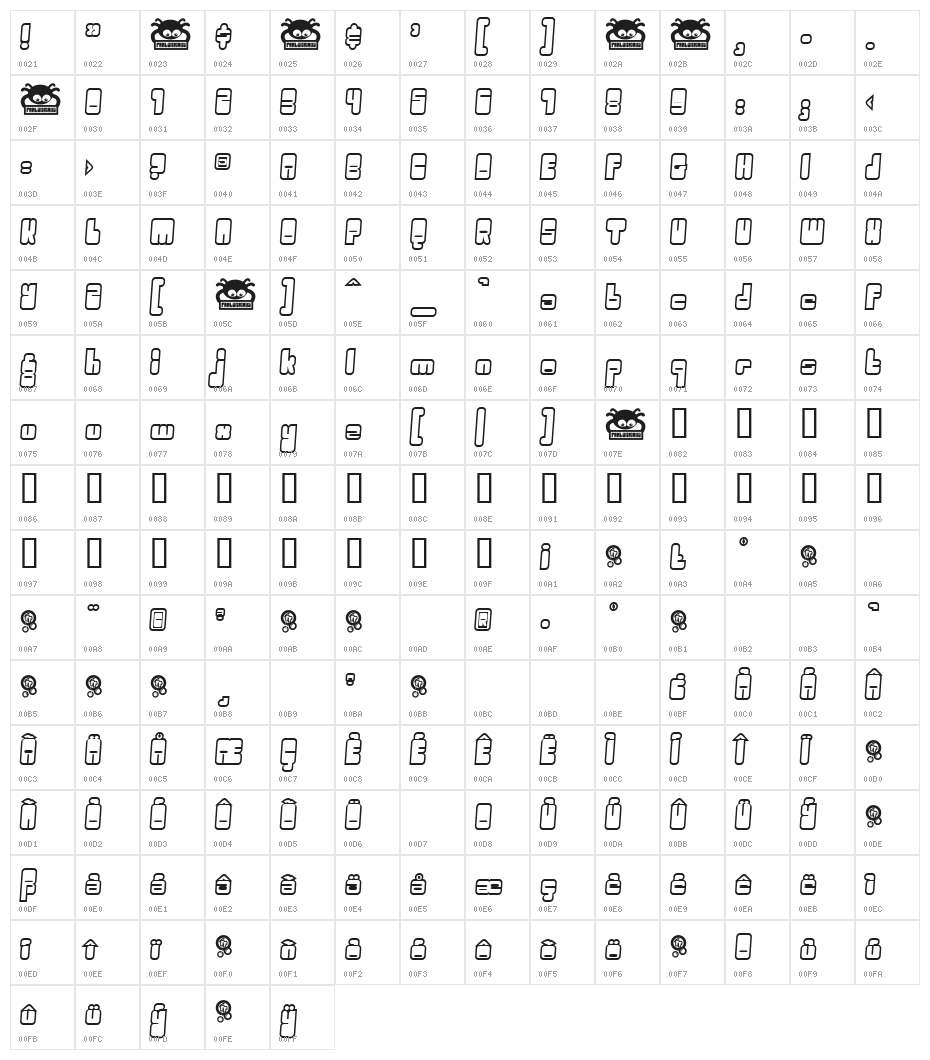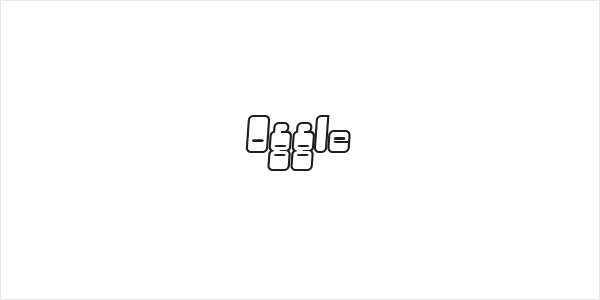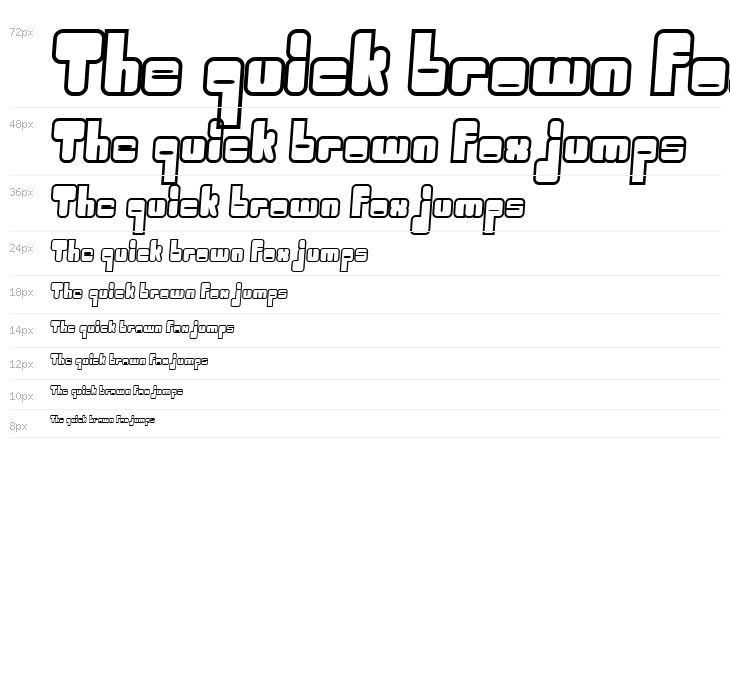
Oggle Font
Oggle Description
This font features a bold, playful design with thick, rounded edges and a cartoonish aesthetic. The characters are enclosed in a heavy outline, giving them a bubble-like appearance. The uppercase and lowercase letters maintain a consistent style, with the lowercase slightly more compact. Numbers and special characters follow the same playful theme, making the font suitable for fun and informal contexts. The overall look is eye-catching and ideal for projects that require a whimsical touch.
Overall StylePlayful, Cartoonish
Proposed ProjectsIdeal for children's books, comic strips, playful branding, and party invitations.